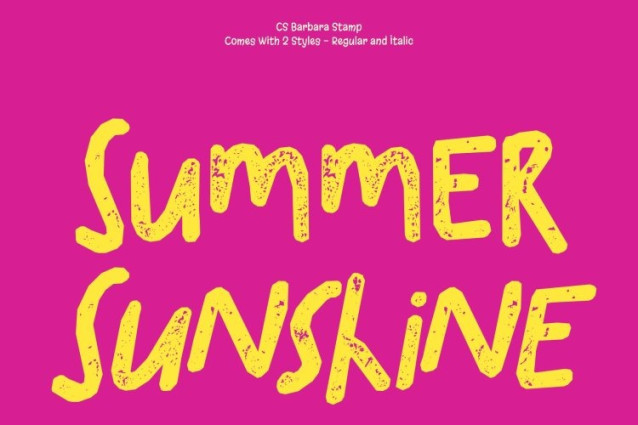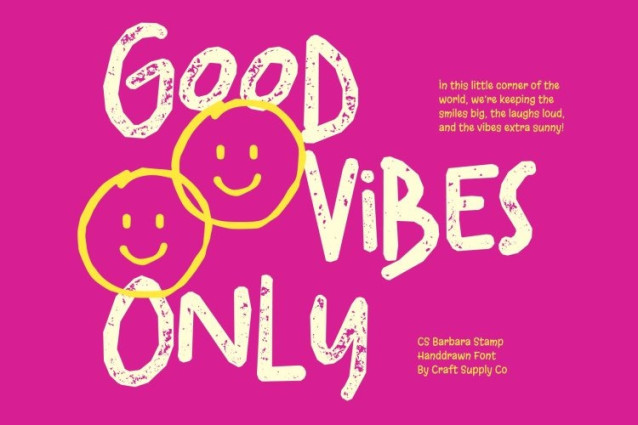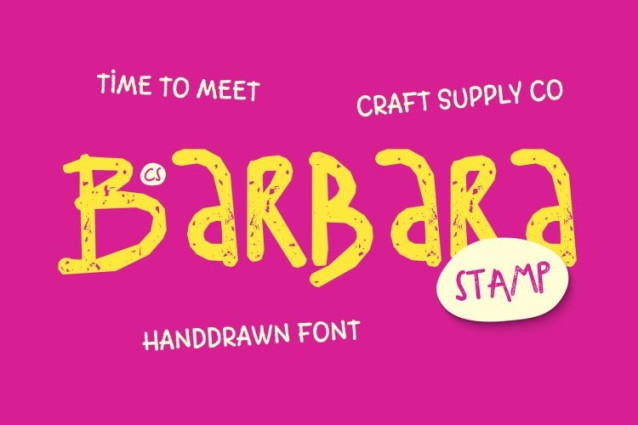
CS Barbara Stamp Font
CS Barbara Stamp Font This radiates fun and positivity through its rounded, flowing handwritten strokes now enhanced with a subtle stamped texture. Gentle ink variations and softly imperfect edges give the letters a handcrafted, print-inspired feel, adding warmth and depth to its naturally lively character.
Friendly, Rounded Forms with Authentic Charm
The smooth curves and approachable shapes remain soft and cheerful, while the stamped effect introduces a tactile quality that feels cozy and expressive. This combination makes the font appear even more genuine and heartfelt perfect for designs that aim to feel cute, welcoming, and full of personality.
Perfect for Greeting Cards and Youthful Branding
This font shines in greeting cards, invitations, children’s projects, and playful branding. Whether used for cafes, kids’ products, or lifestyle brands, its textured handwritten style communicates friendliness and creativity with effortless charm.
Versatile for Casual and Modern Designs
From posters and packaging to digital graphics and social media content, this font adapts beautifully across applications. Its blend of energetic handwriting and vintage-stamped warmth creates a fun, modern aesthetic that always feels fresh, expressive, and delightfully inviting.